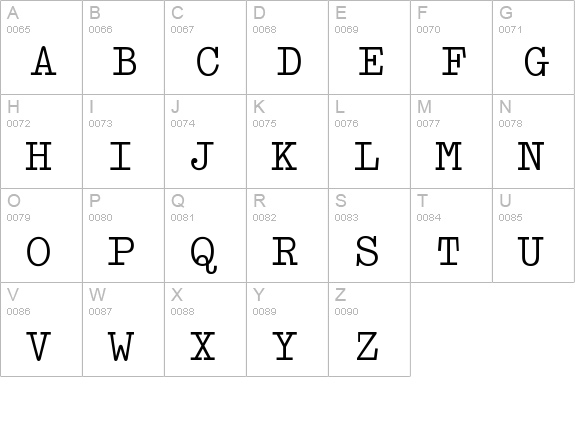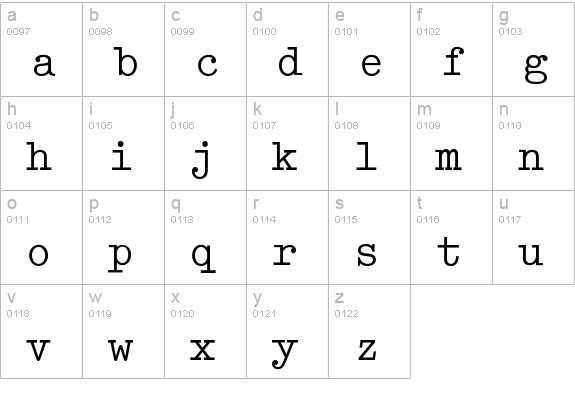
Schreibmaschinenschrift Font Details
Schreibmaschinenschrift font is a stunning typeface that pays homage to the classic typewriter aesthetic. With its vintage charm and timeless appeal, this font is perfect for adding a touch of nostalgia to any design project. Featuring a clean and crisp design, Schreibmaschinenschrift font captures the essence of old-school typewriters with its distinct and uniform letterforms. The characters are beautifully crafted, showcasing the unique imperfections and character quirks that were synonymous with typewriter writing. One of the standout features of Schreibmaschinenschrift font is its versatility. Whether you're designing a retro-inspired poster, creating a vintage logo, or adding a touch of authenticity to your digital scrapbooking projects, this font has got you covered. Its bold presence and easy readability make it an ideal choice for both headlines and body text. And the best part? Schreibmaschinenschrift font is absolutely free to download at FontsMarket.com. This means that you can enjoy all the incredible features and benefits of this font without having to spend a dime. Whether you're a professional designer or a hobbyist, this font allows you to bring your creative visions to life without breaking the bank. So why wait? Download Schreibmaschinenschrift font today and start adding a touch of vintage elegance to your designs. With its timeless appeal and freely available nature, this font is sure to become a staple in your font library.